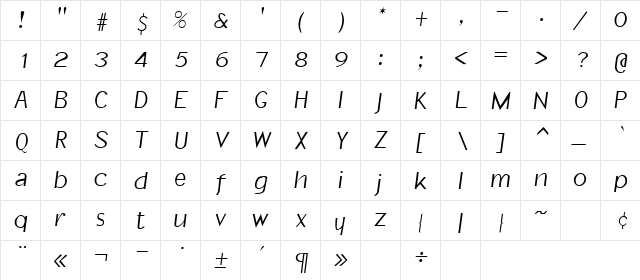
SlantInformal Regular
Design Context for SlantInformal Typeface
SlantInformal takes a measured approach to typography — its balanced proportions and neutral character make it a reliable workhorse for both digital and print work.
Pro Tip: Pair SlantInformal with a font of contrasting weight or personality to build a more expressive typographic hierarchy.